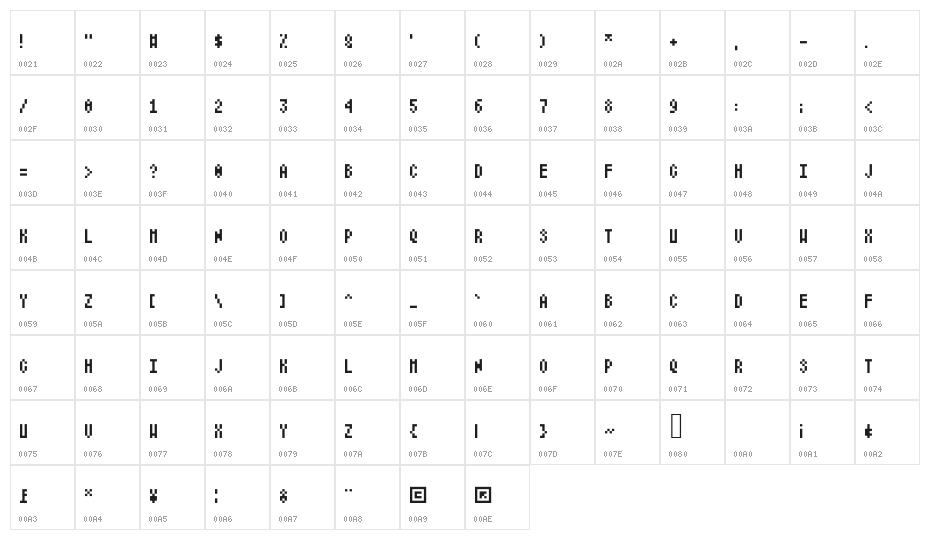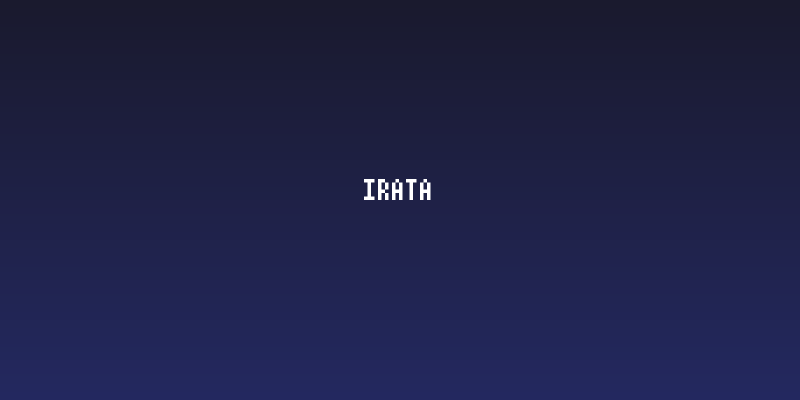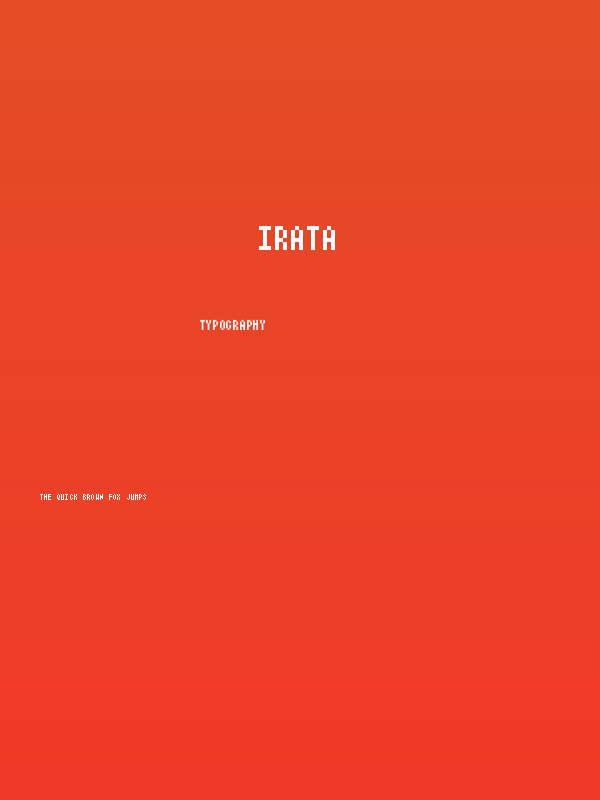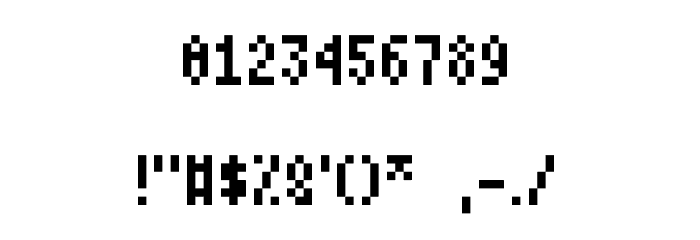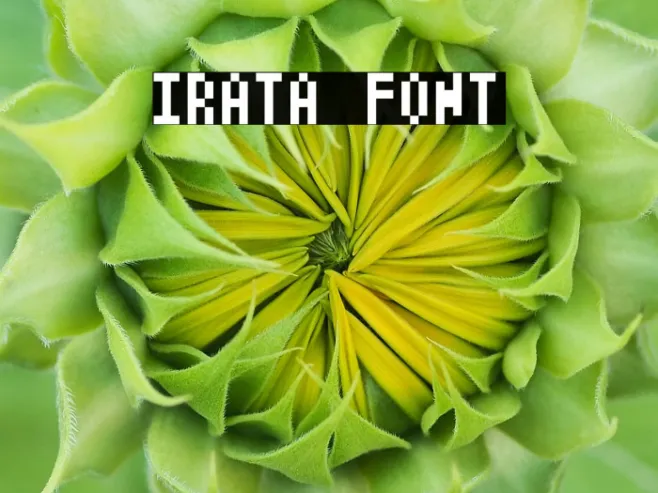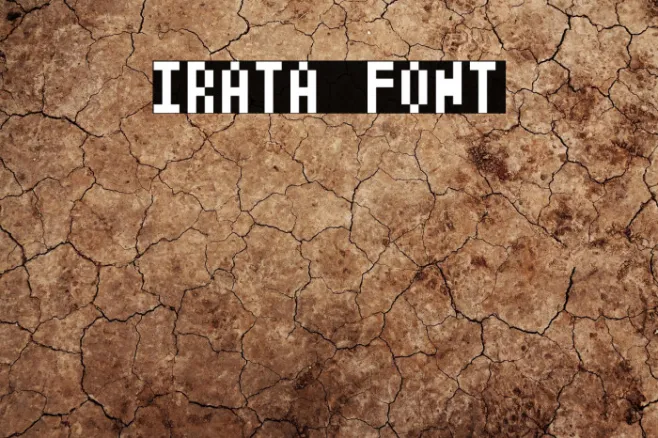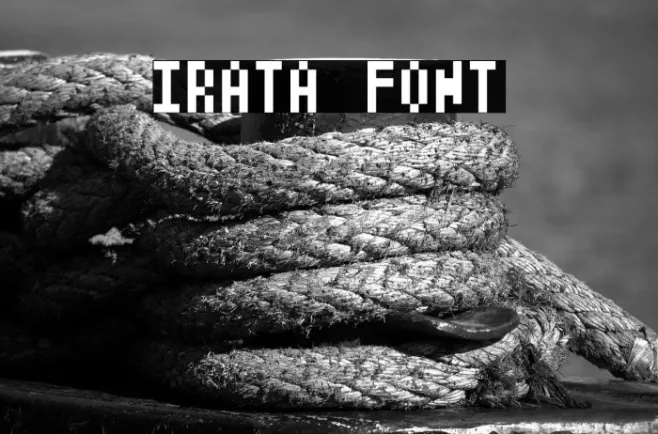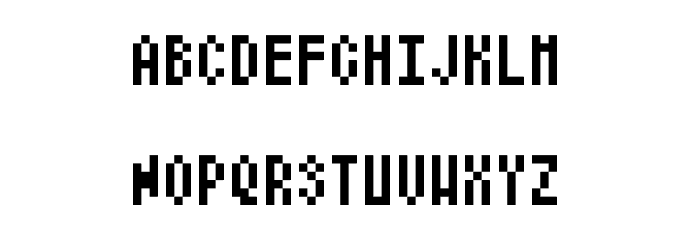
Irata Font
Irata Description
This font features a pixelated, blocky design reminiscent of early digital displays and video games. Each character is composed of square pixels, giving it a retro, 8-bit aesthetic. The uppercase and lowercase letters are uniform in height, contributing to a monospaced appearance. The numbers and special characters maintain the same pixelated style, ensuring consistency across all glyphs. This font evokes a sense of nostalgia and is ideal for projects that aim to capture the essence of vintage computing or gaming.
| Use Case | Logos, Headlines, Digital Art |
| Proposed Projects | Ideal for retro video games, digital art projects, and designs that require a nostalgic, vintage computing feel. |